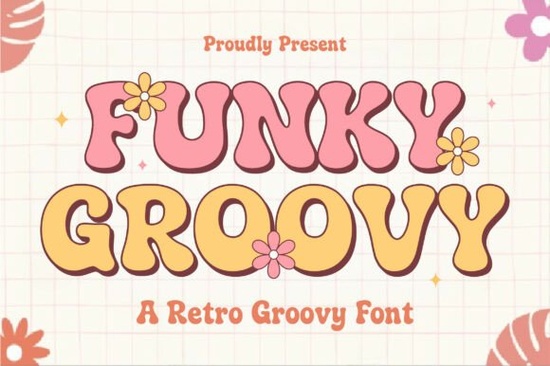
When you need to add a sense of nostalgia and playful energy to a project, choosing the right typography is everything. The Funky Groovy Font is a bold retro display typeface that captures the exact vibe of 1970s pop culture. With its chunky letterforms and bubbly curves, it brings a fun, approachable feel to any layout. Whether you are designing merchandise for a print-on-demand store or creating invitations for a children's party, this typeface gives your work a distinct, hand-crafted personality that stands out on the shelf.
What makes 70s-inspired typography so effective for modern brands?
Retro design taps into a sense of comfort and familiarity. The rounded edges and heavy weights of this style feel incredibly friendly and welcoming. Unlike sharp, minimalist fonts that can sometimes feel cold or corporate, bubbly curves invite the viewer in. It creates an immediate emotional connection, which is exactly what small businesses and crafters need when trying to build a loyal customer base. If you prefer a moodier, more mysterious retro vibe for your seasonal campaigns, you might also explore a dark vintage display style to keep things visually interesting.
Where can I use chunky, bubbly letterforms in my projects?
Because of its heavy visual weight, this typeface is best reserved for short, impactful phrases. Here are a few practical ways to apply it:
- Stickers and Decals: The thick outlines and solid fills make it incredibly easy to cut, print, and sell on platforms like Etsy.
- Kids' Apparel and Toys: The playful curves appeal to younger audiences and parents looking for fun, vibrant aesthetics.
- Café and Bakery Branding: It is perfect for menus, coffee cups, and storefront signs that want to feel cozy and approachable.
- Social Media Graphics: The heavy weight ensures readability even when viewed on small mobile screens.
For a more textured, hand-drawn look in your children's book illustrations, pairing it with a crayon brush display font can add a nice tactile contrast to your spreads.
How do I pair this typeface with other styles without cluttering my layout?
Since the primary letters are so loud and decorative, they need a quiet partner. Stick to clean, simple sans-serifs or basic serifs for your body text. You want the main headline to do all the talking. If you want to keep the playful theme but need something slightly more structured for your subheadings, a thick outline display font can provide a great secondary heading option without competing for attention. Remember to avoid using two highly decorative fonts in the same design, as it will confuse the reader.
What are the best practices for setting retro display fonts?
Letter-spacing and color choices make a huge difference. Retro fonts often look best with slightly tight tracking, allowing the bubbly curves to connect more fluidly. When it comes to color, stick to warm, muted tones like burnt orange, mustard yellow, and avocado green to enhance the authentic 70s feel. If you are designing a retro-themed board game, you might use this bubbly style for the main title and a classic Greek odyssey display font for the character cards to separate the visual hierarchy. To see more examples of how other crafters are applying this specific funky groovy display font in real-world mockups, browsing community galleries can give you fresh layout ideas.
Quick Checklist for Your Retro Design Project
- Limit your word count: Keep the text short and punchy. These chunky letters are meant for headlines, not body copy.
- Choose an era-appropriate palette: Stick to warm, muted tones to enhance the vintage feel.
- Adjust the tracking: Slightly tighten the letter-spacing to make the curves connect fluidly.
- Add a hard drop shadow: A solid, unblurred drop shadow will make the text pop off the background nicely.
Start by sketching out your layout on paper before opening your design software. Blocking out where your heavy display text will sit helps you balance the visual weight of the page before you even pick your colors.